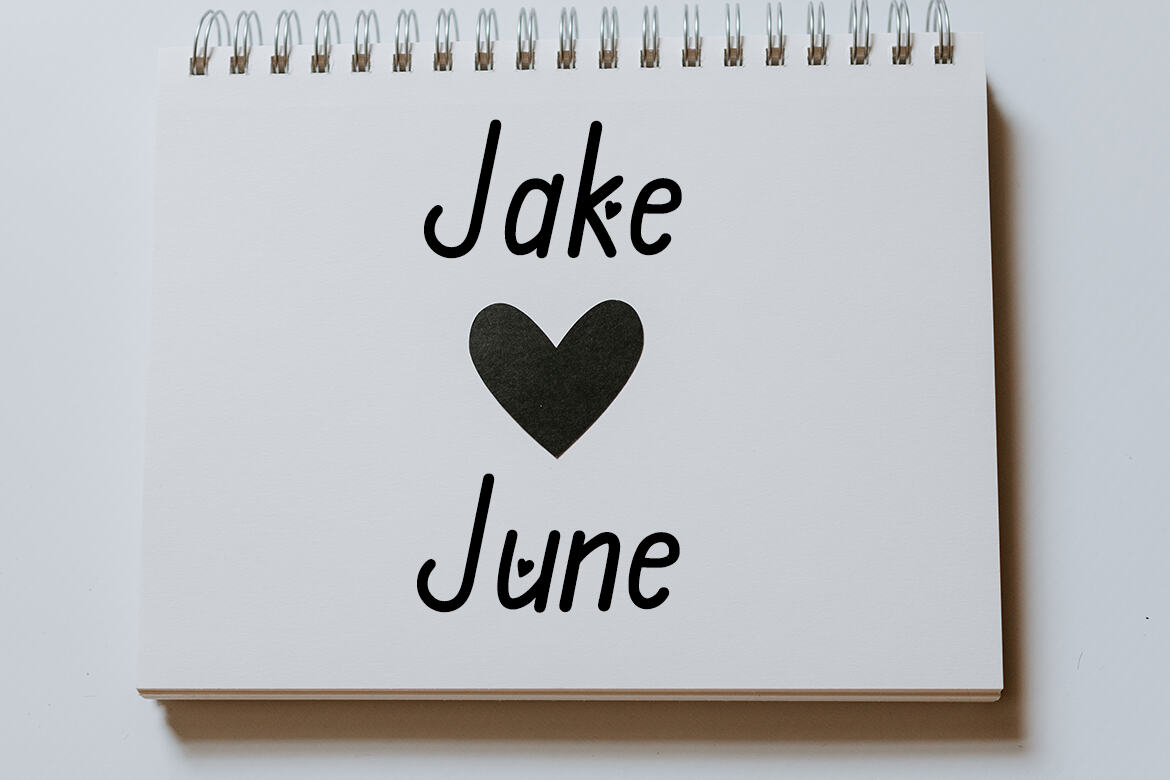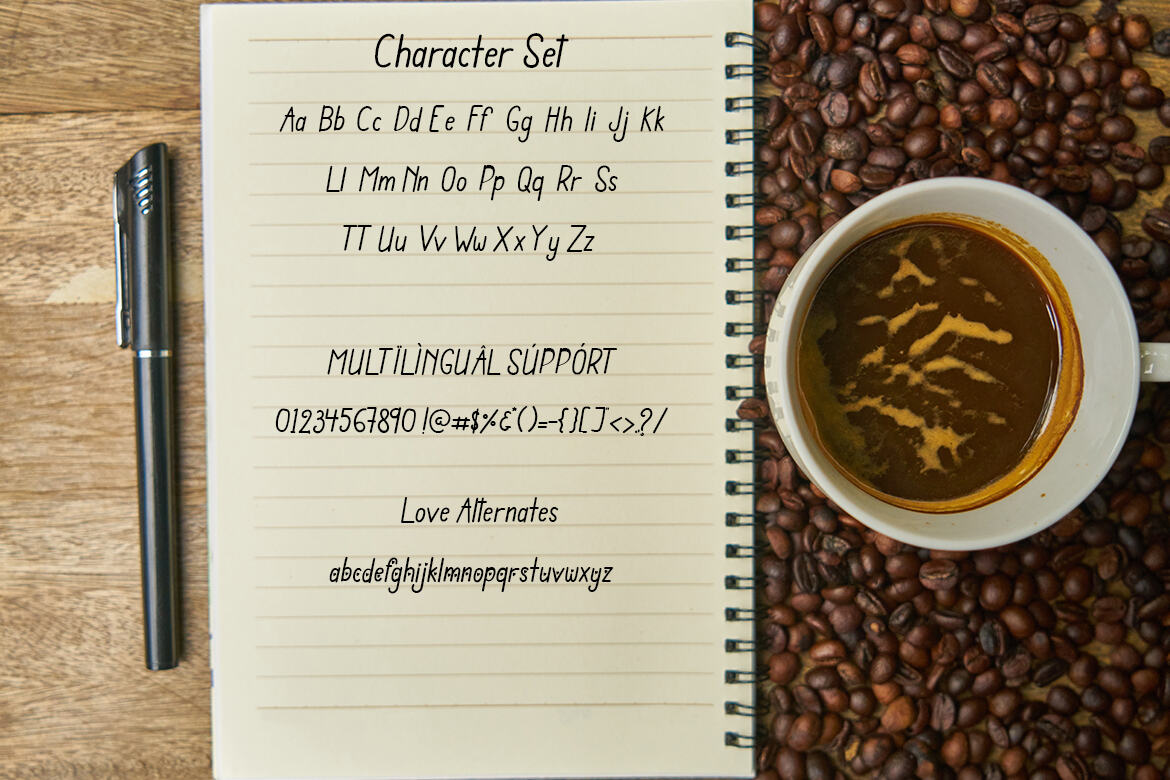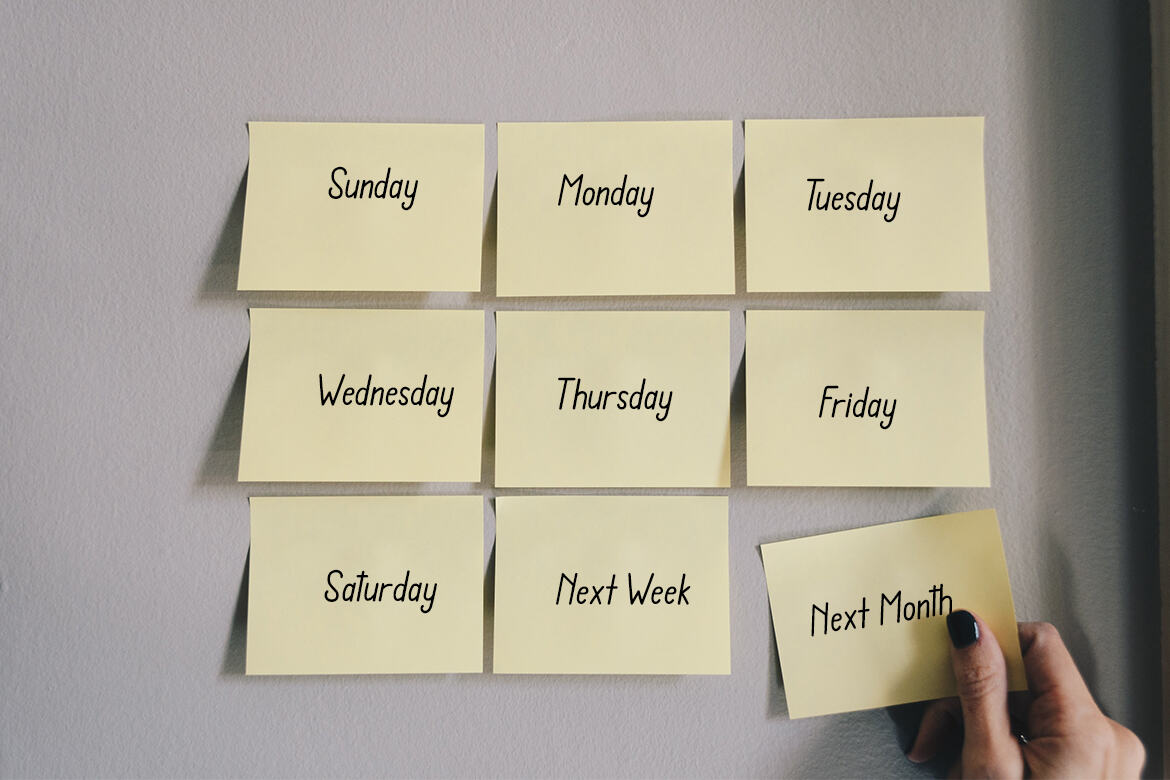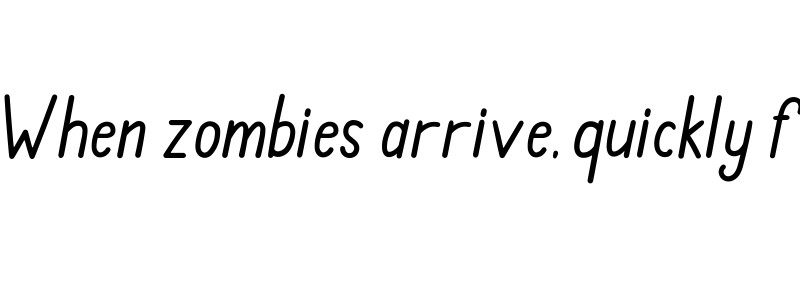
Romantic Diary FREE Font
Romantic Diary
Romantic Diary is a neat and simple handwritten font. Warm, romantic and jolly, this font will turn each of your project ideas into real works of art. Have fun with this beautiful font and explore its endless variations.
• have numbers and punctuation,